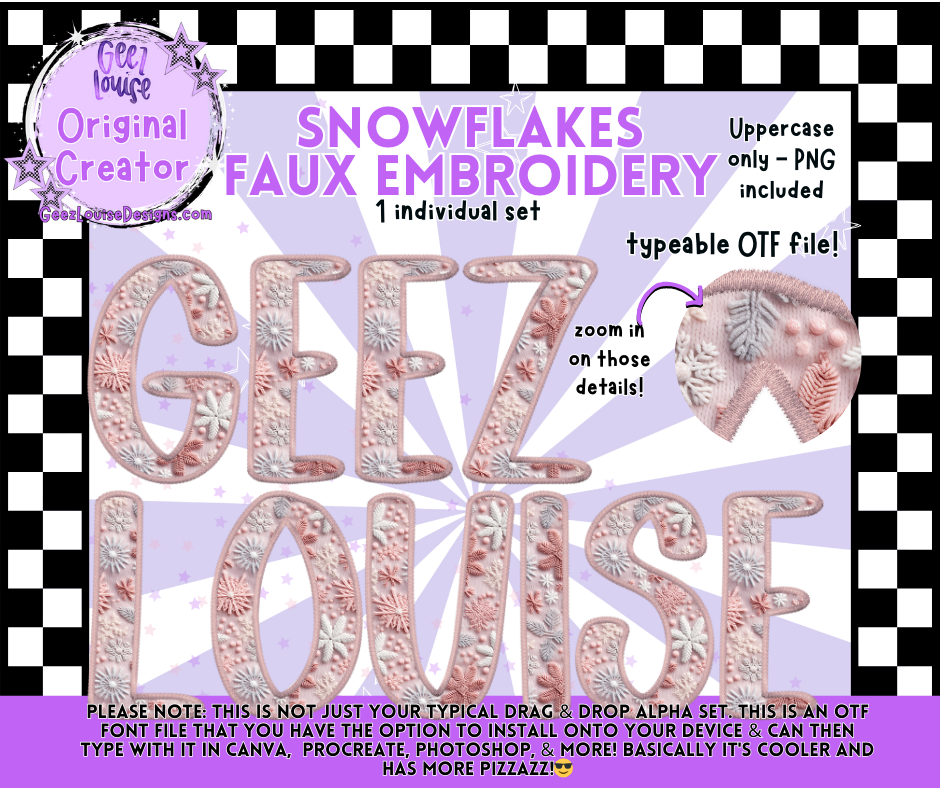
❄️ Add frosty elegance to your projects with the Snowflakes Faux Embroidery Alpha Font! ❄️
This set features delicate snowflake patterns with faux embroidered texture, perfect for winter and holiday designs. Cozy, stitched details make every letter feel like a handmade touch of the season.
• 1 Individual Set – detailed with snowy patterns and embroidery edges.
• Unique snowflake details with textured faux embroidery effect.